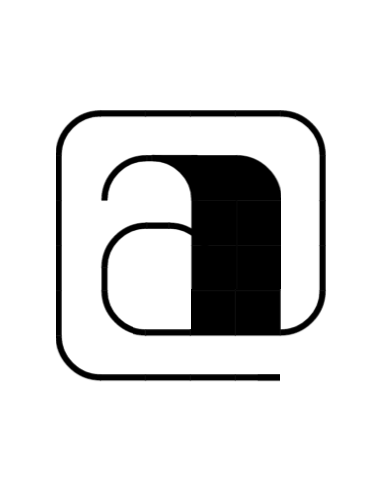
Beautiful sans serif with a hint of art deco. Some letters have alternates at lower case, but they are capitals, too. Both versions are simple and elegant; the alternates look a bit retro, should you need retro style. The special characters are also pretty. I would only change the @. (See my suggestion on the picture.) All in all, it is a great work, TP well deserved. 10/10
Thanks, I changed the @.
Beautiful, the contrast in stroke weight (making full use of the new thin macaroni bricks) is powerful and really makes this one stand out!
Very elegant, great use of the thin macaronis. Some glyphs have a strong 3D quality. I like the alternates in the LC, they add a strong 60s feel.
¡Rotunda letra! Powerful font! Great work, compañero!
I like this font. 100000000000/10.